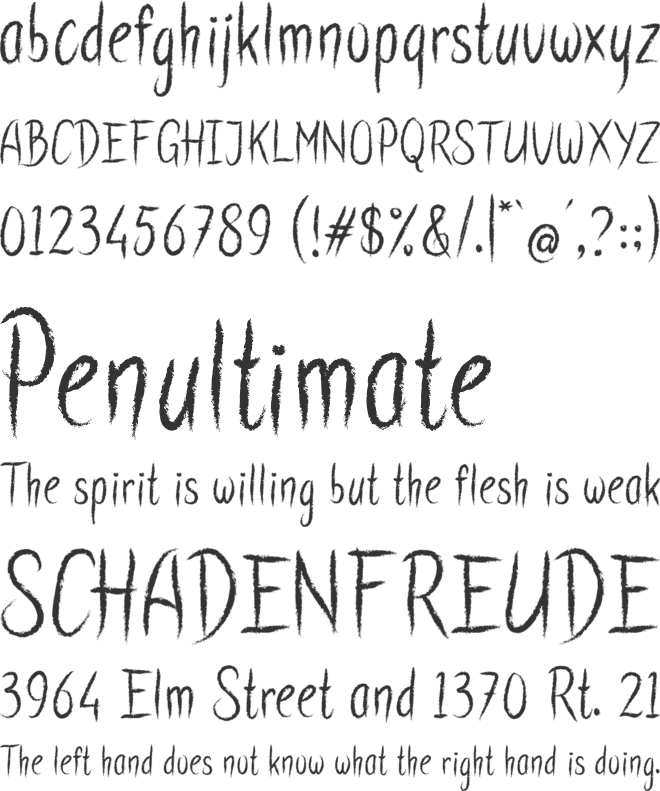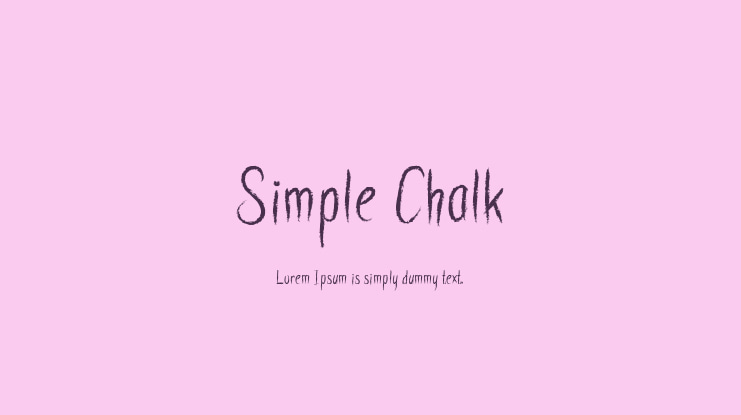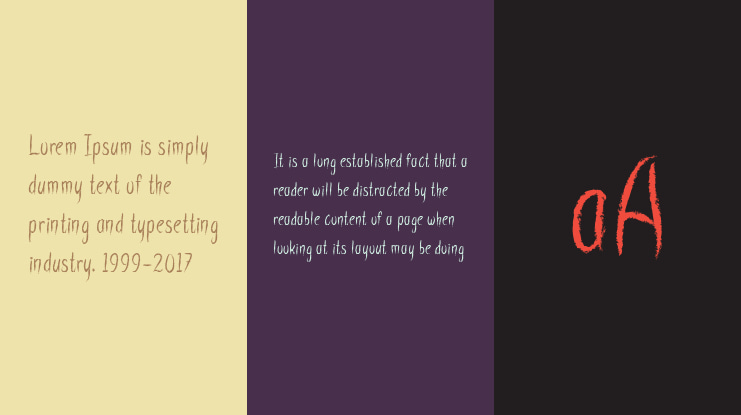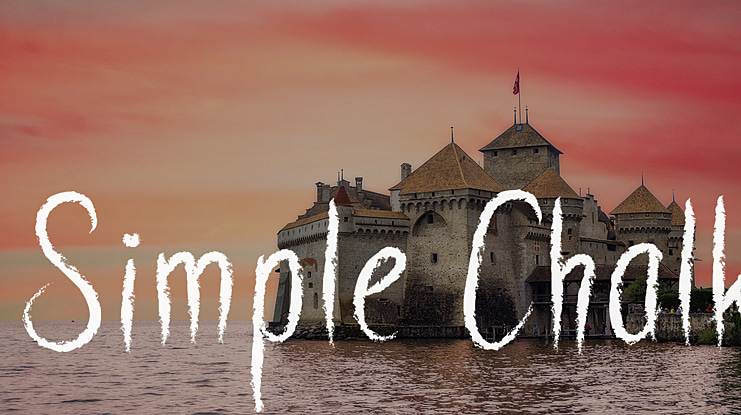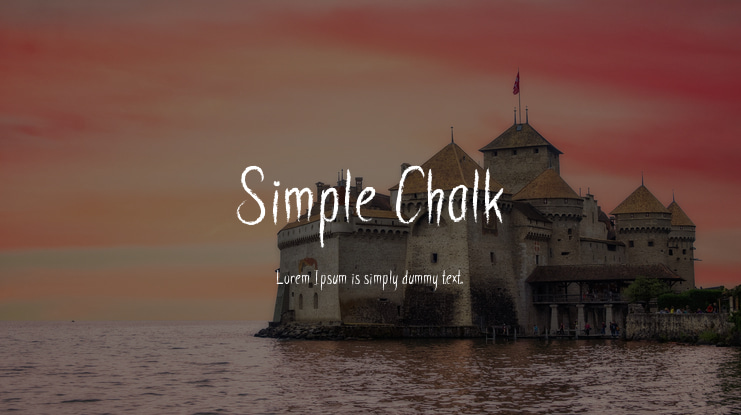
Simple Chalk Font
Presenting my cool handwritten chalk font, This font will nice to text on the black board, school theme, course theme, learning theme, etc.
This font featured with 265 glyphs and supported to complete basic Latin characters.